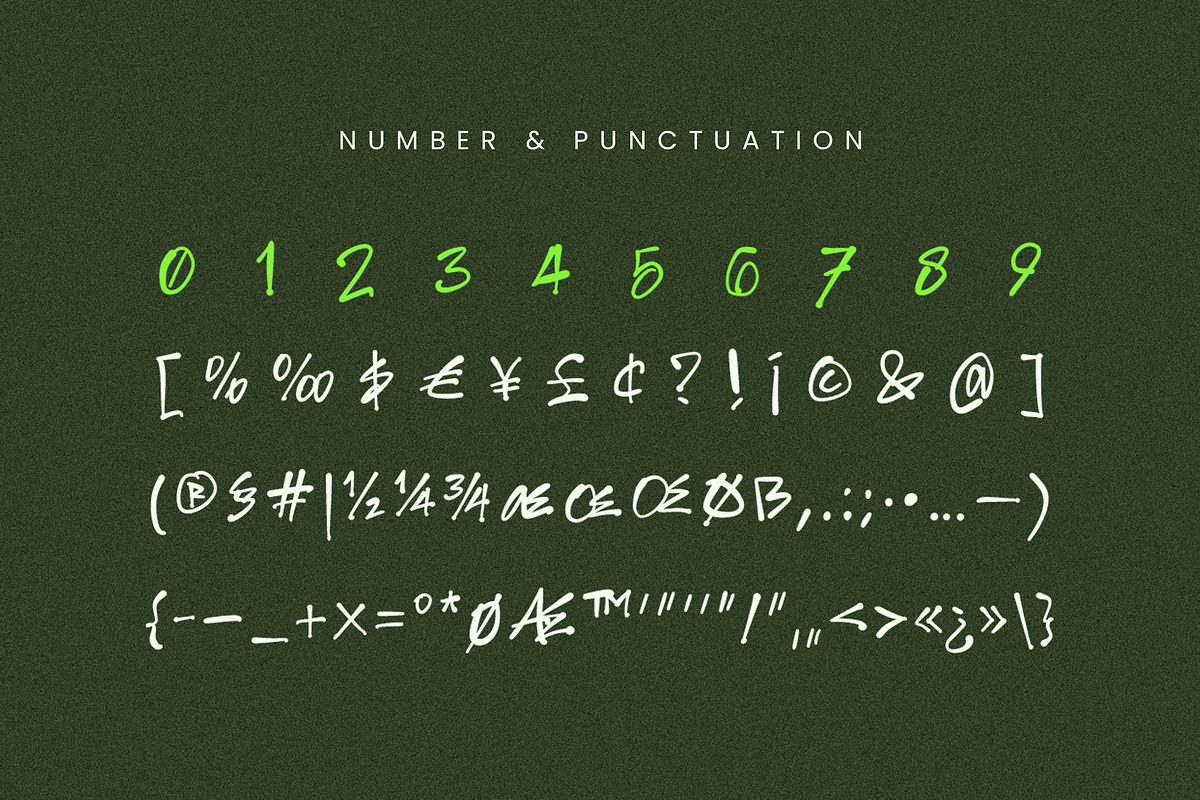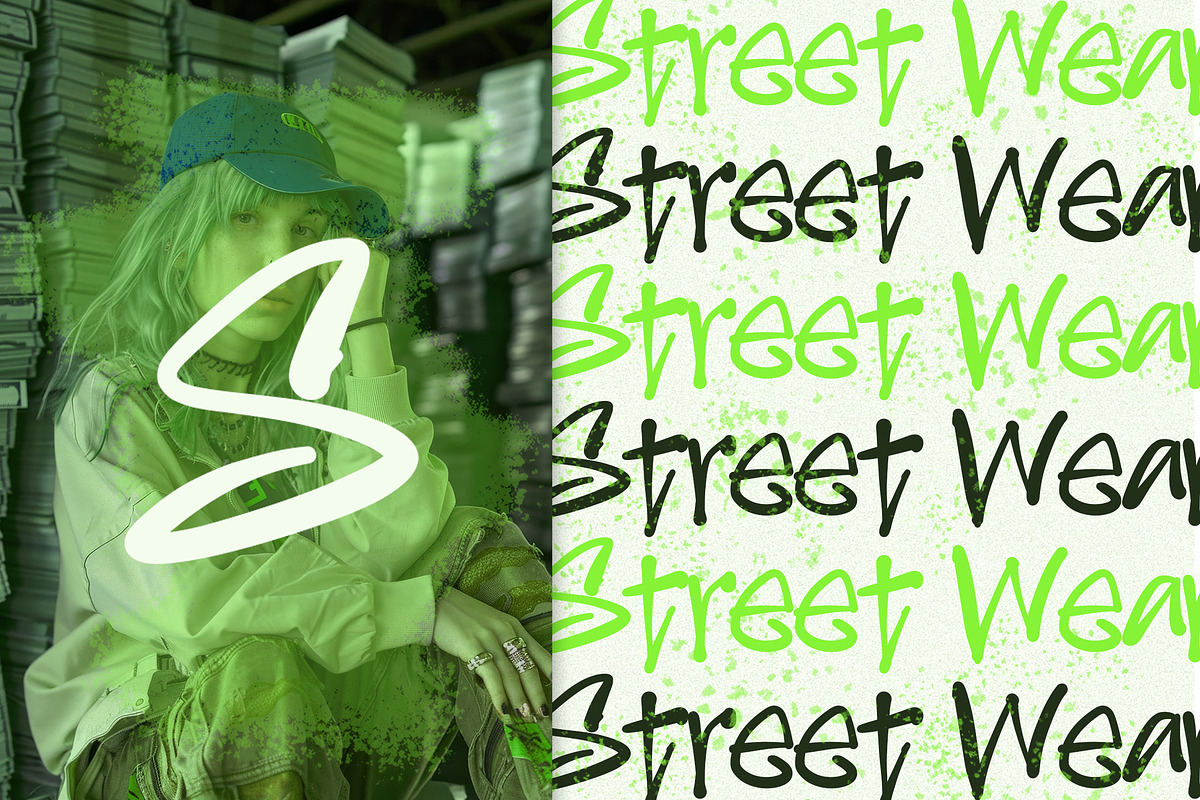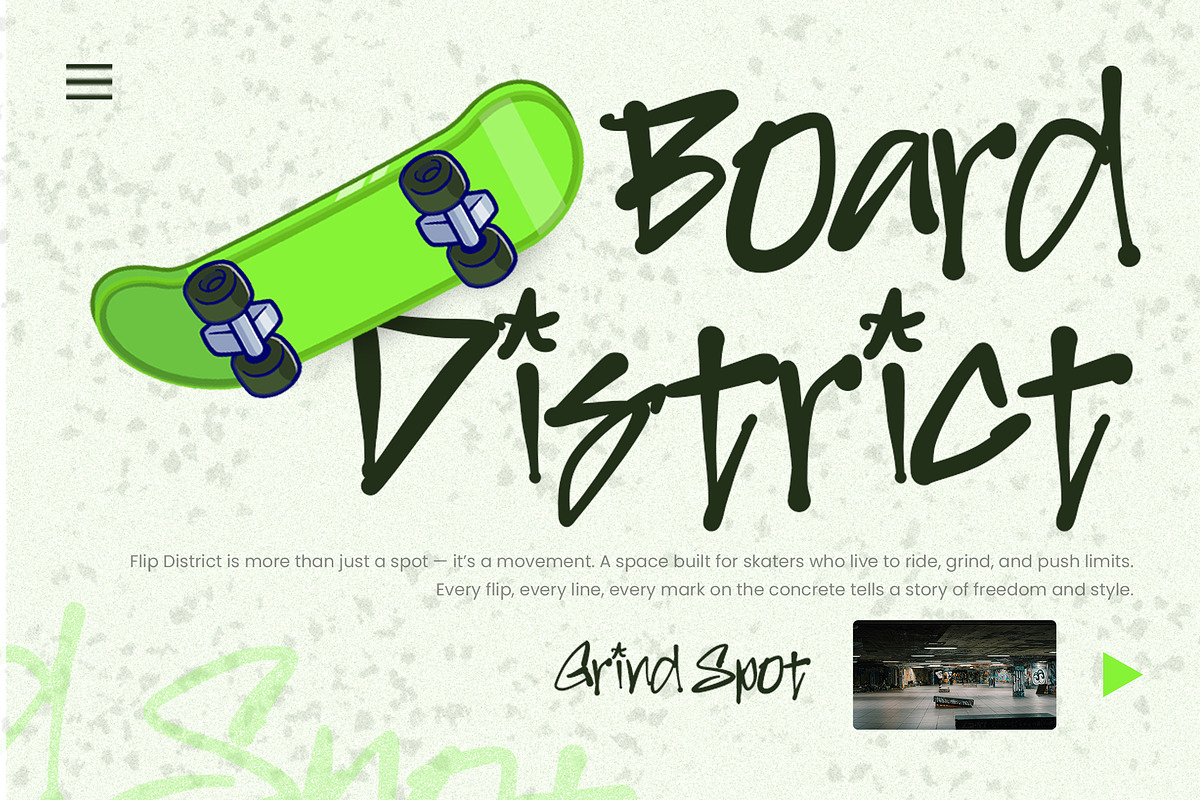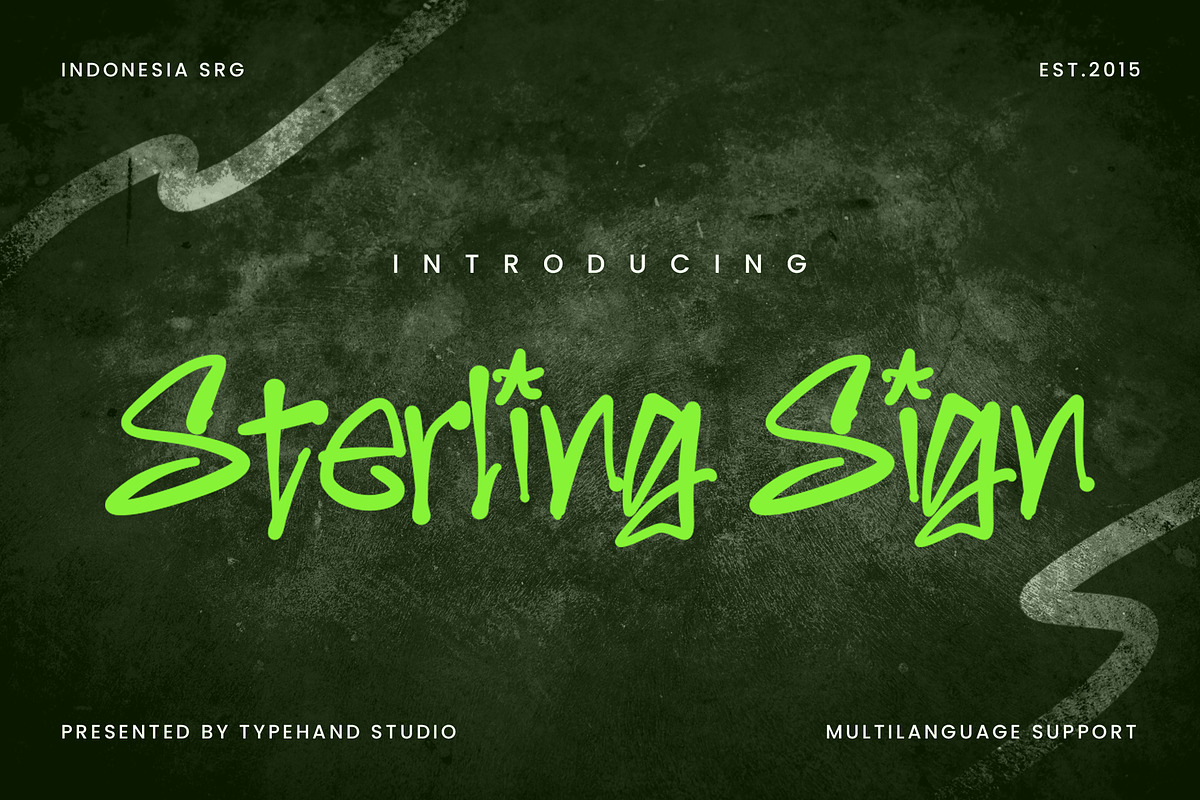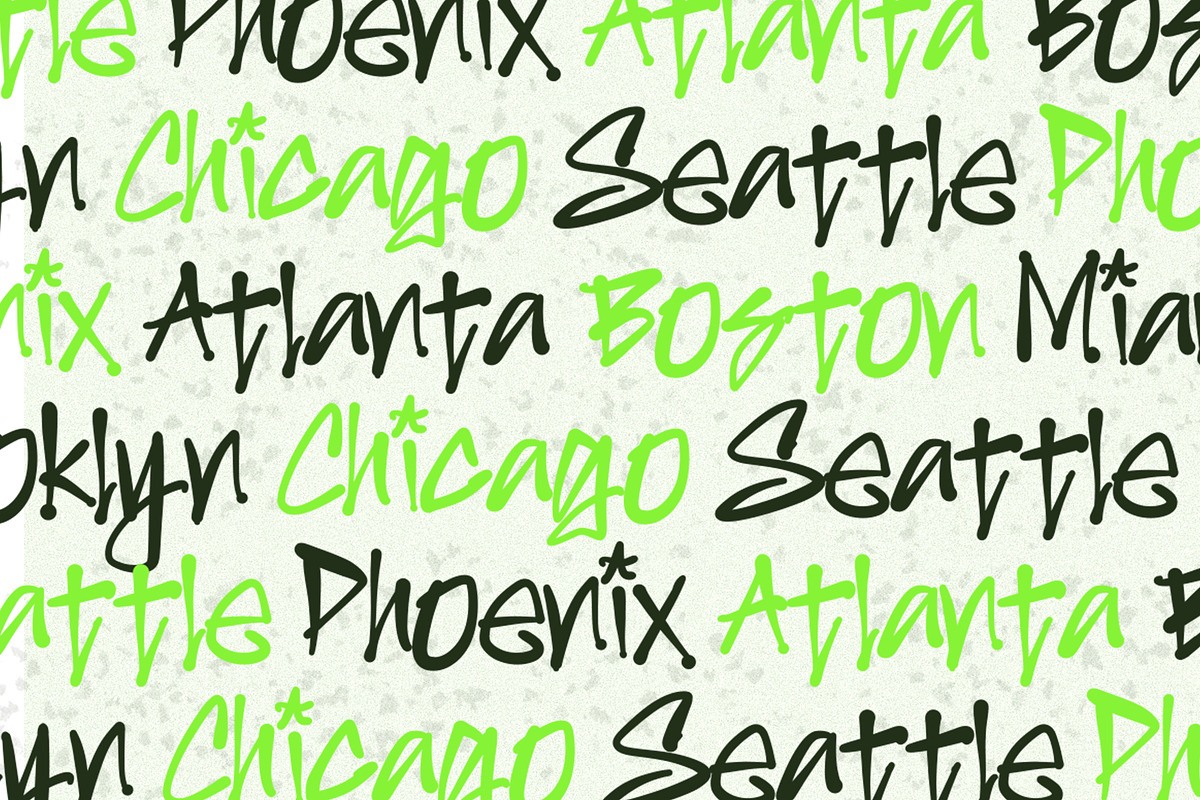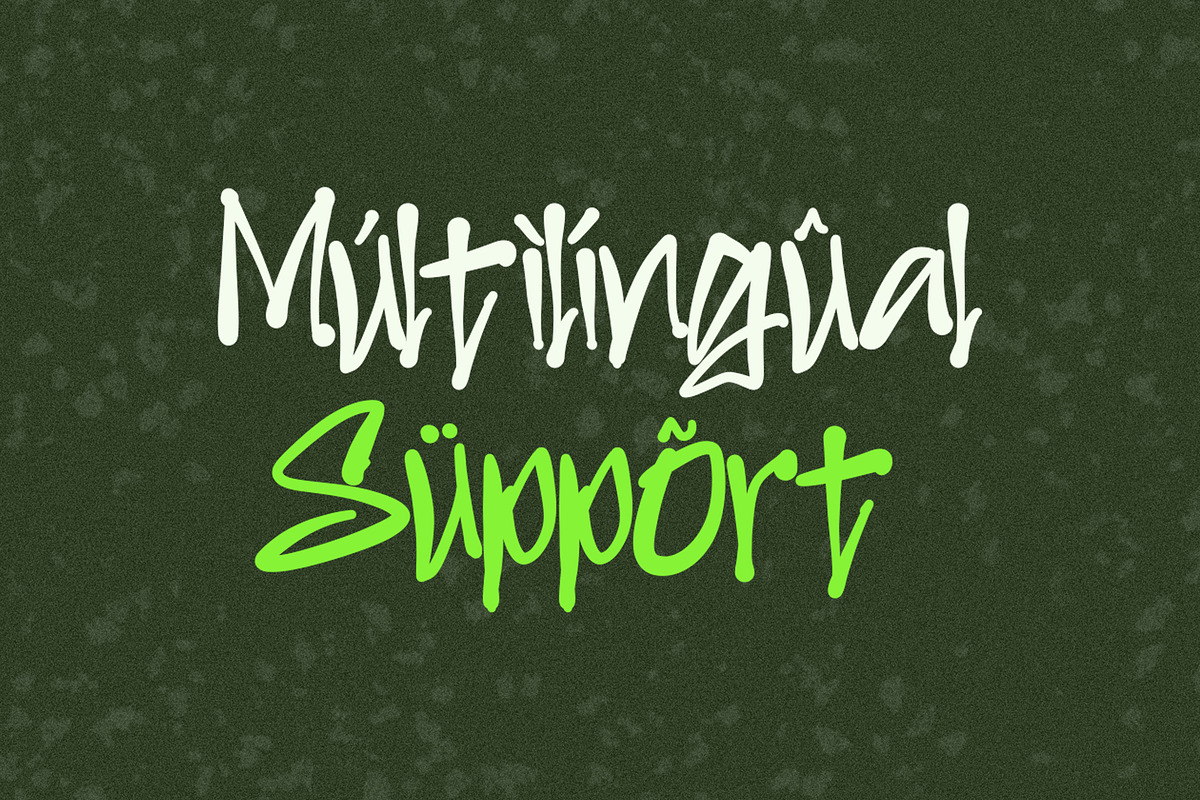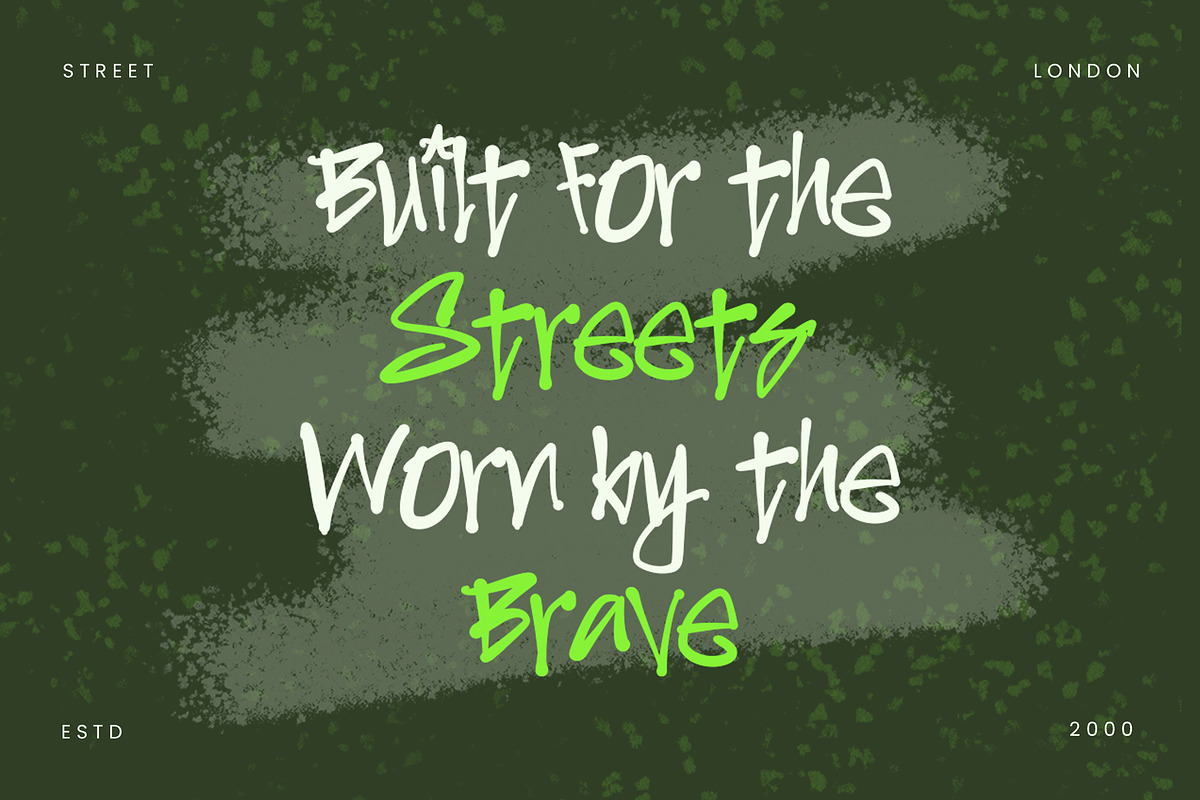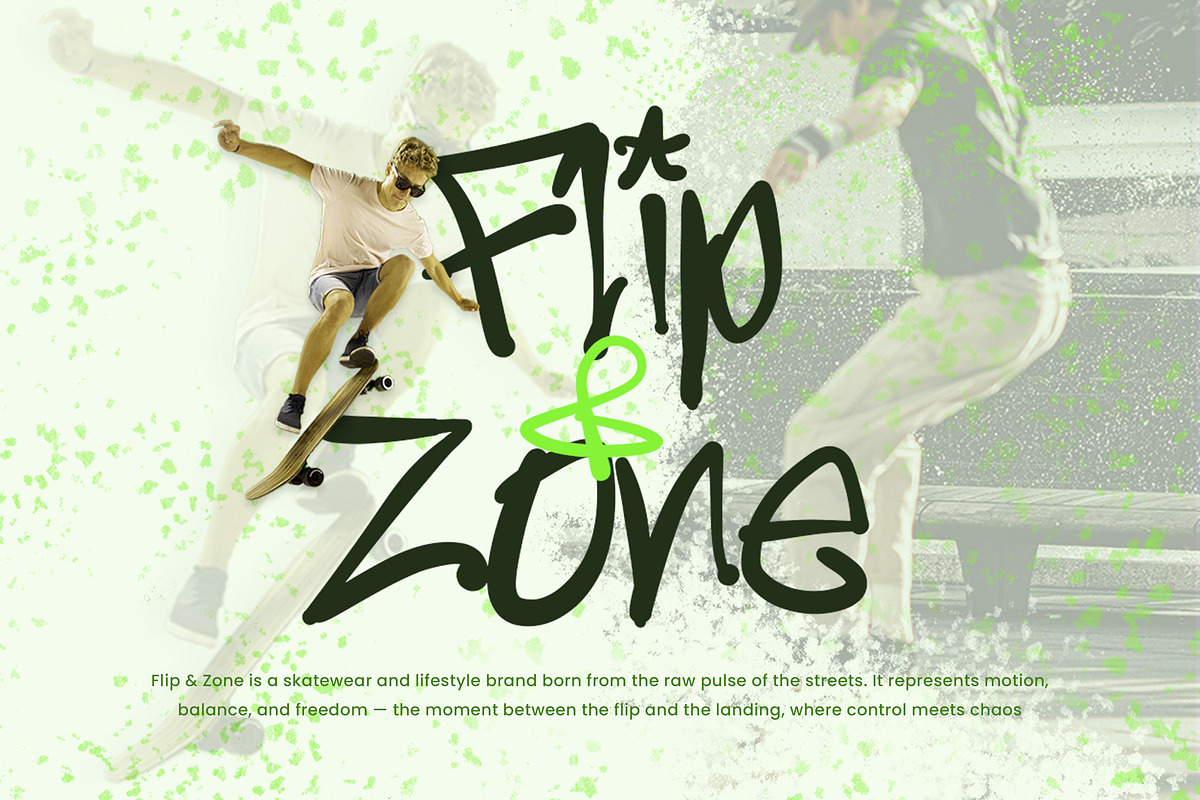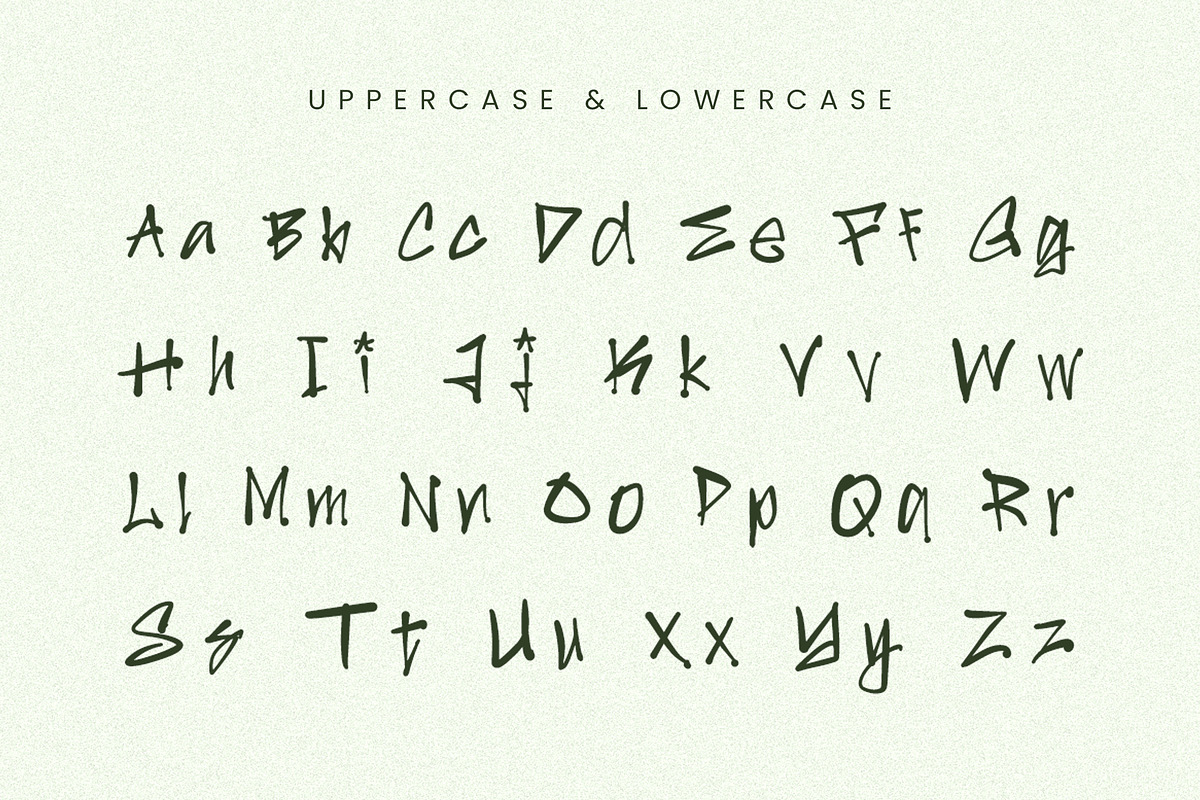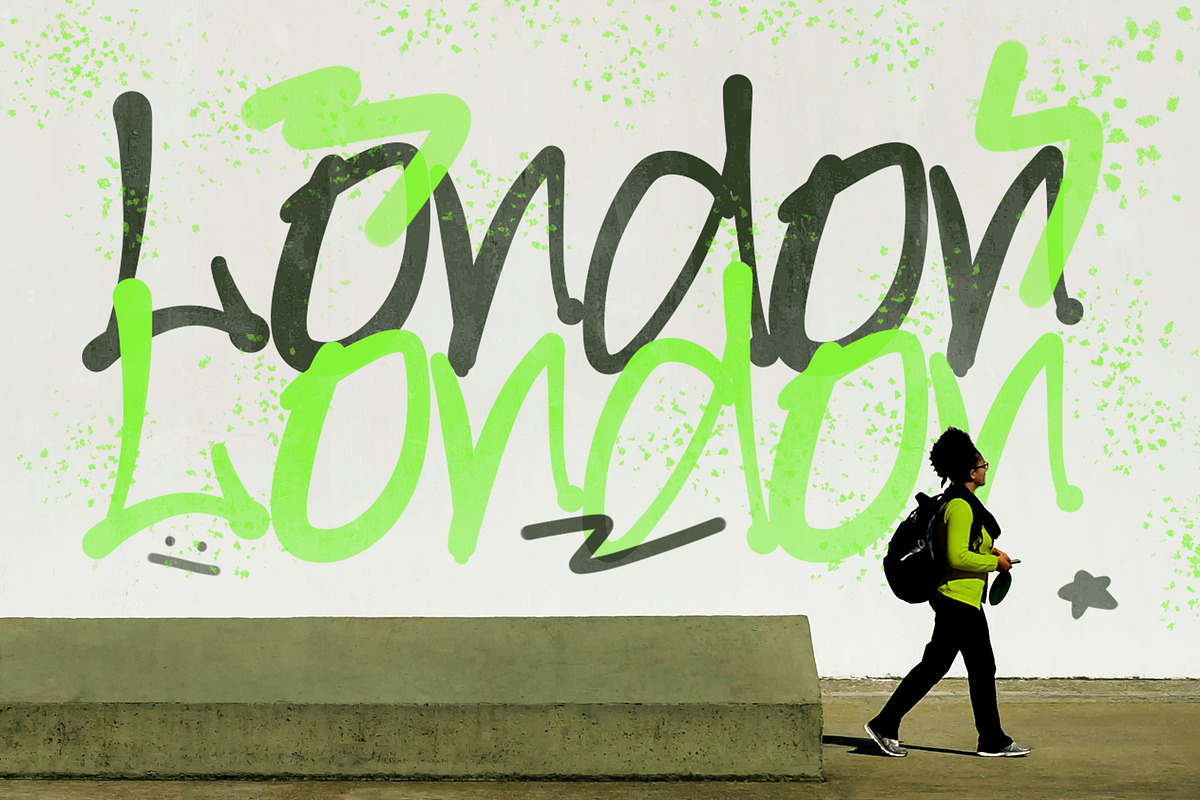
Sterling Sign – Urban Graffiti
Sterling Sign is a bold street-style signature font inspired by raw urban culture, graffiti energy, and modern streetwear aesthetics. Designed to feel loud, expressive, and fearless, this font delivers a hand-drawn marker look that instantly grabs attention.
Perfect for streetwear branding, skate culture visuals, posters, album covers, social media graphics, logos, and bold typography statements, Sterling Sign brings an authentic street attitude into your designs. Its dynamic strokes and organic flow create a natural handwritten feel while staying readable and impactful.
Built for creatives who want their message to stand out—not blend in. If your project needs motion, rebellion, and urban soul, Sterling Sign does the job without compromise.
This font works exceptionally well for both digital and print, making it a powerful choice for modern designers, brands, and content creators.